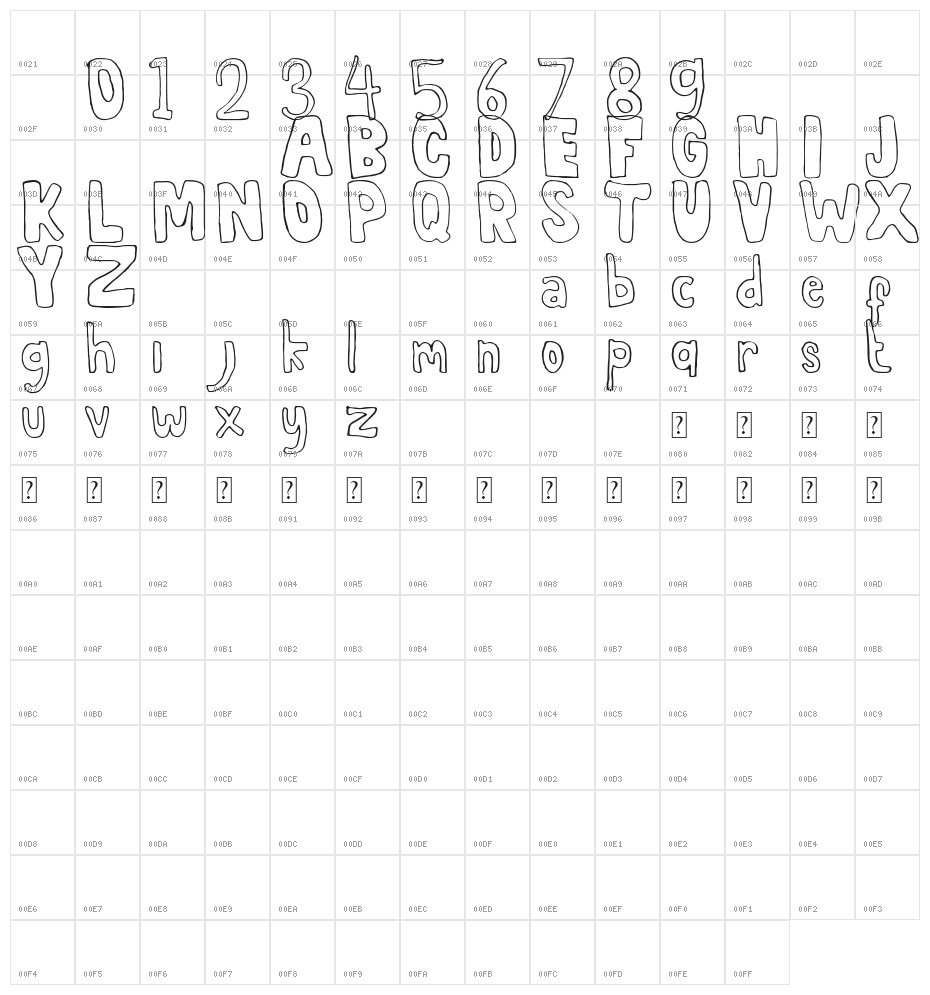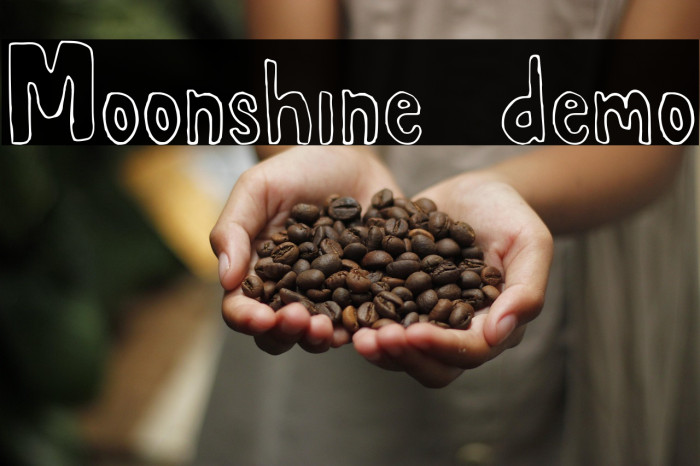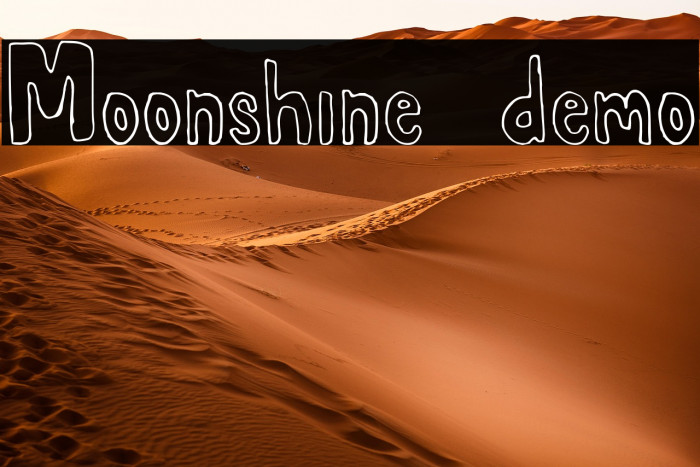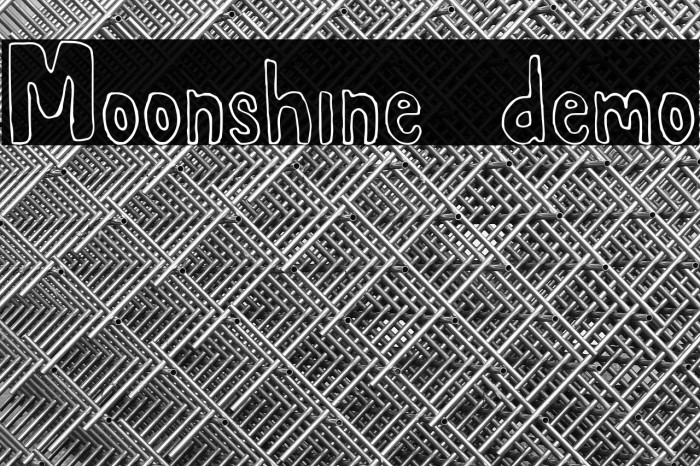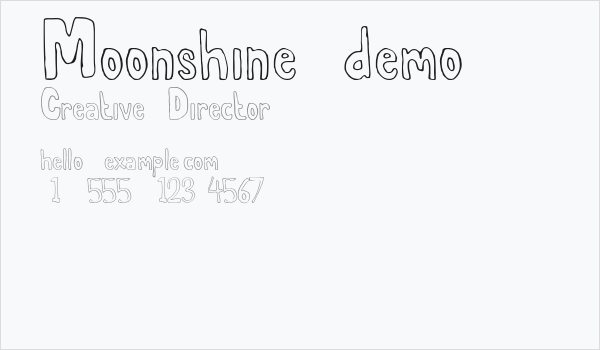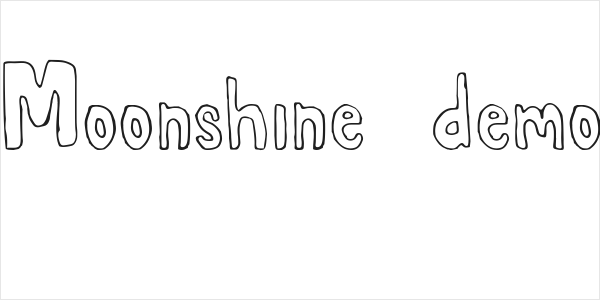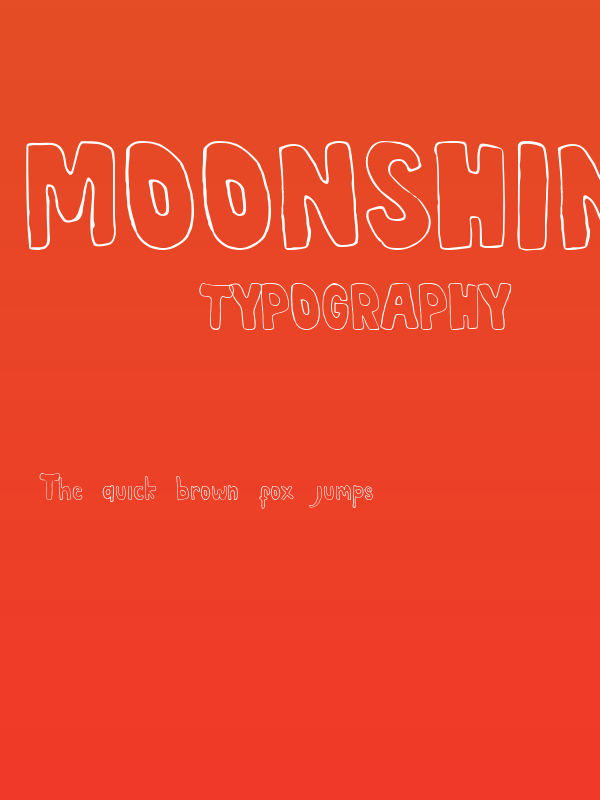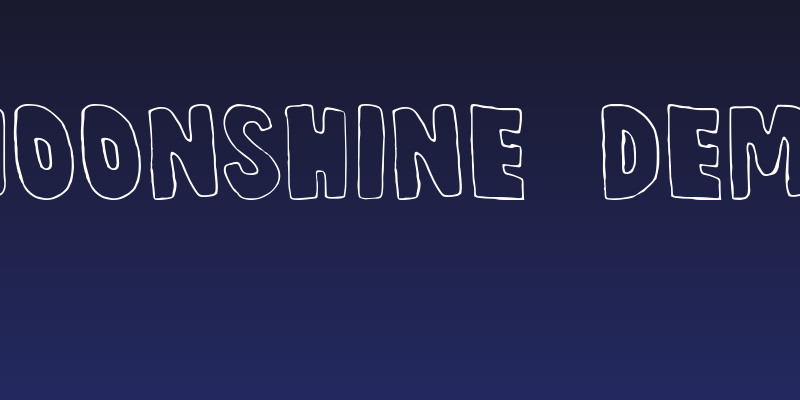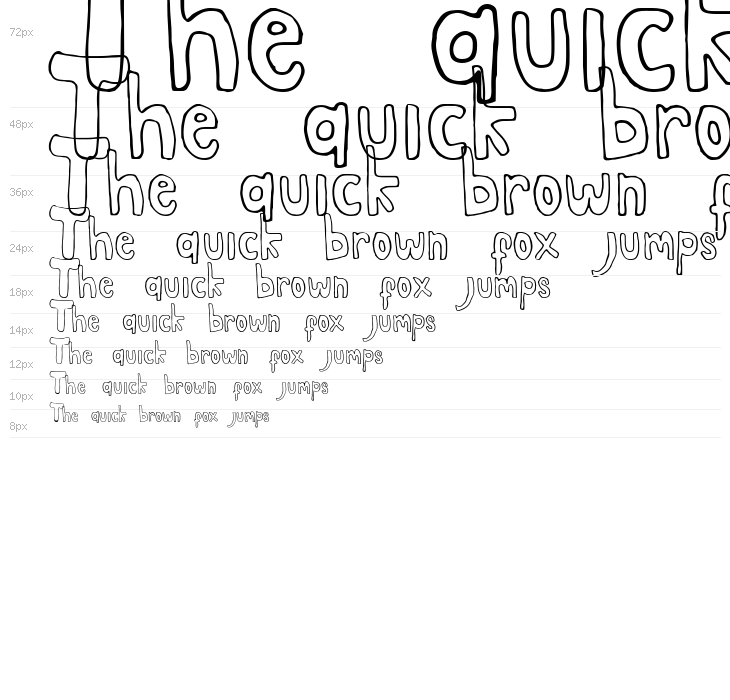
Moonshine demo Font
Moonshine demo Description
This playful and whimsical font features a hand-drawn aesthetic with irregular, organic shapes that give it a unique and casual appearance. The characters are bold and rounded, with a slightly uneven baseline that adds to its charm. The uppercase and lowercase letters maintain a consistent style, while the numerals and special characters complement the overall design. This font exudes a friendly and approachable vibe, making it ideal for creative projects that require a touch of personality and fun.
| Proposed Projects | Ideal for children's books, greeting cards, playful branding, and creative posters. |